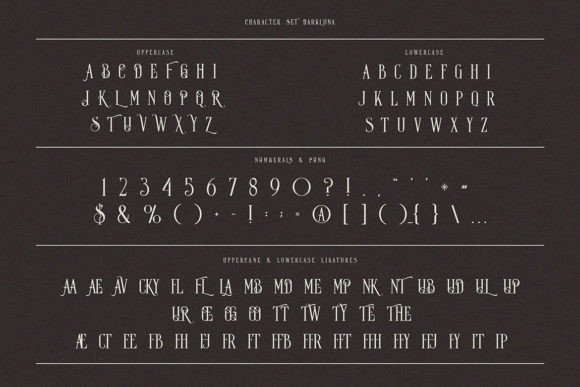
Dark Luna Font
Dark Luna is a vintage and exclusive serif font that is perfect for creating distinctive and timeless designs. It has a classic, yet modern aesthetic that will add a luxurious look to any project.